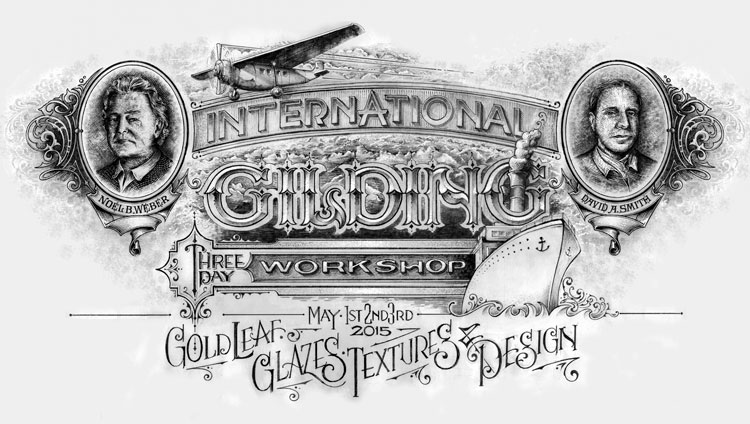
Hi everyone. Noel and I would like to announce that we are teaching a 3 day gilding workshop in Boise , Idaho. The dates are the 1st 2nd and 3rd of May.
Students will make two reverse gilded glass panels with a combination of many decorative reverse glass techniques. We will be covering design ideas and how we build our artwork ready for screen printing and sign painting.
Lots of gilding and embossing techniques will be covered along with blending ,shading, stippling , glazes and damar varnish. etc.. etc...
Noel Weber - David Smith Glass - Gilding workshop in Boise.